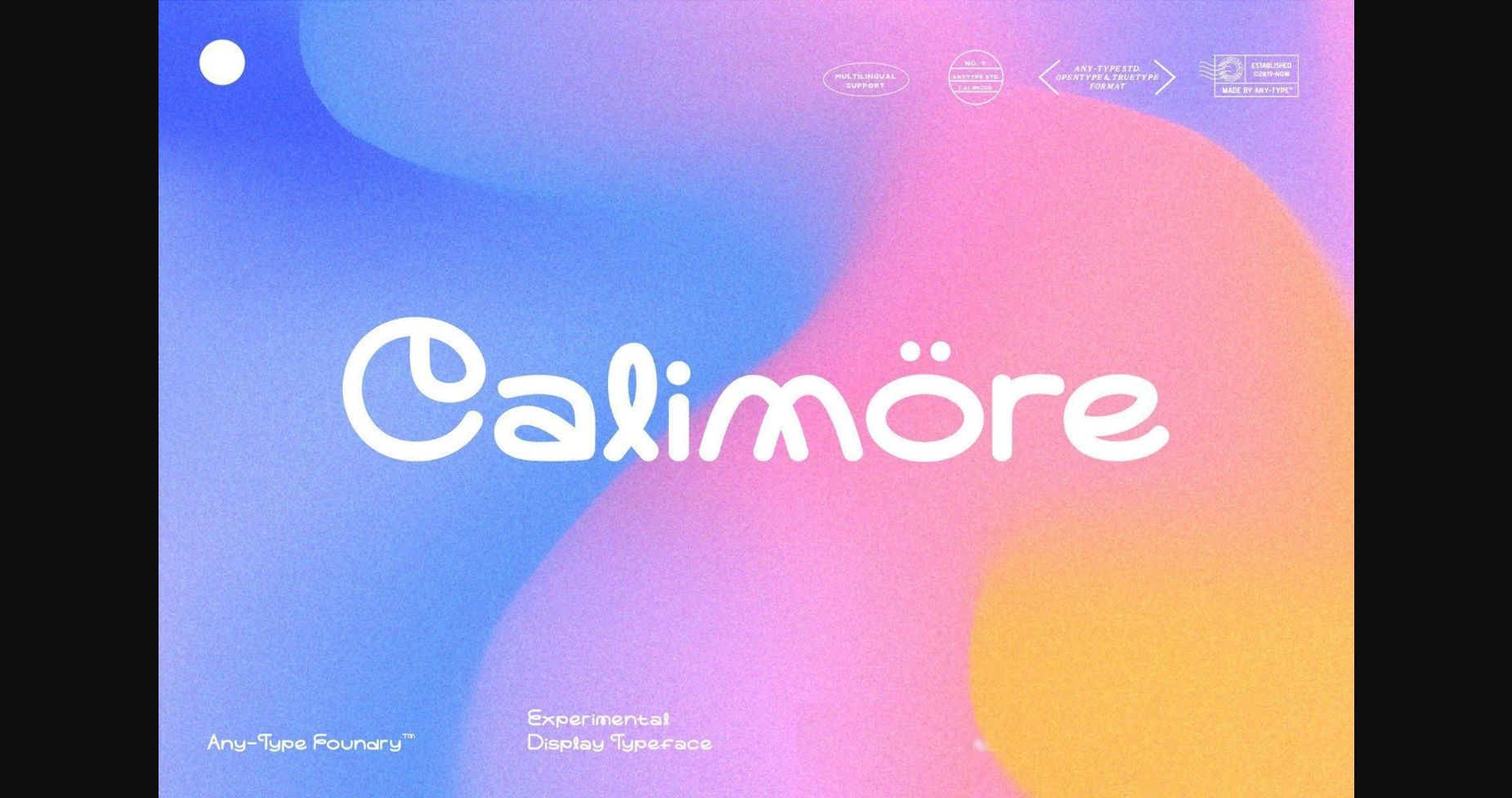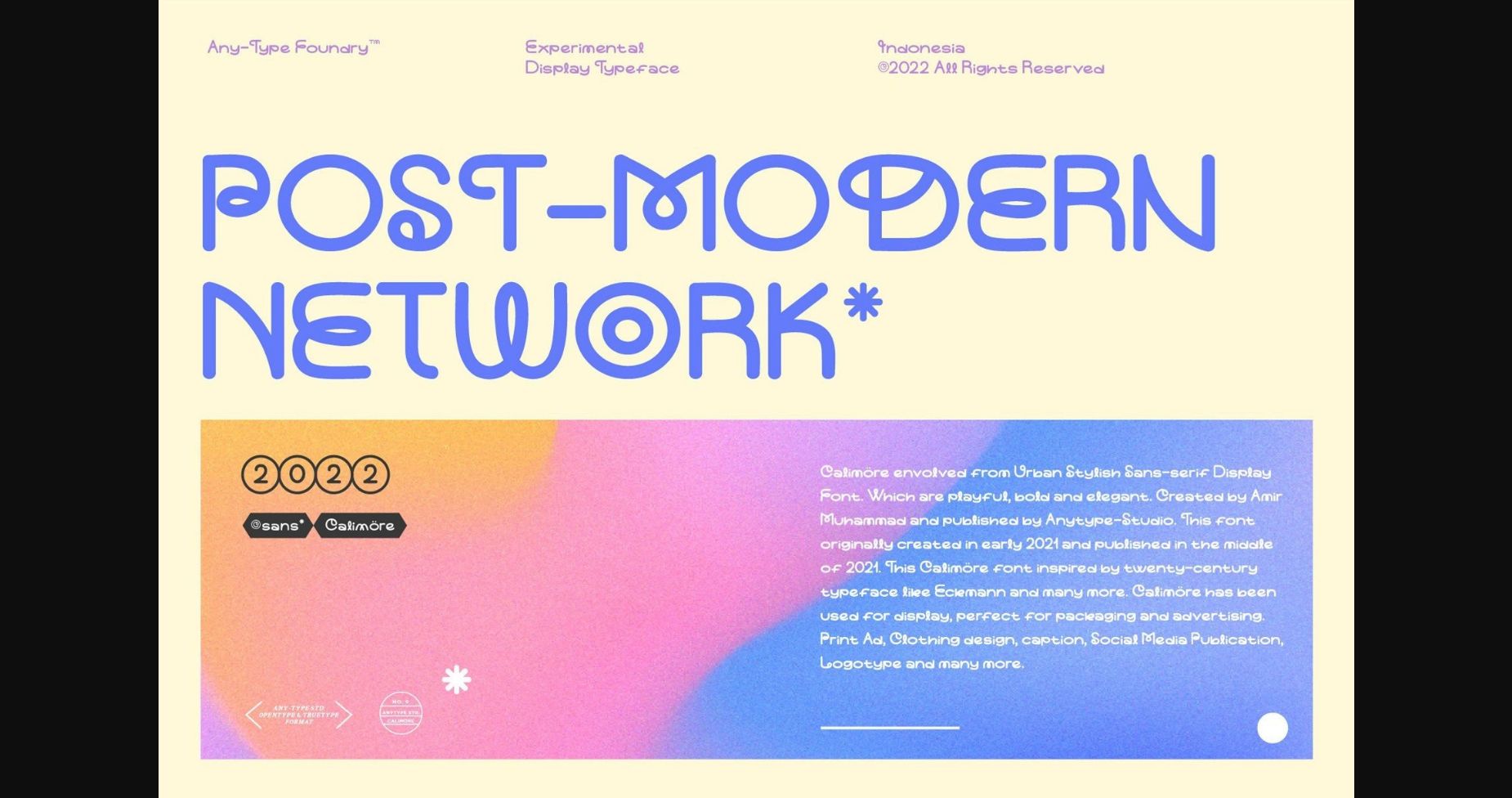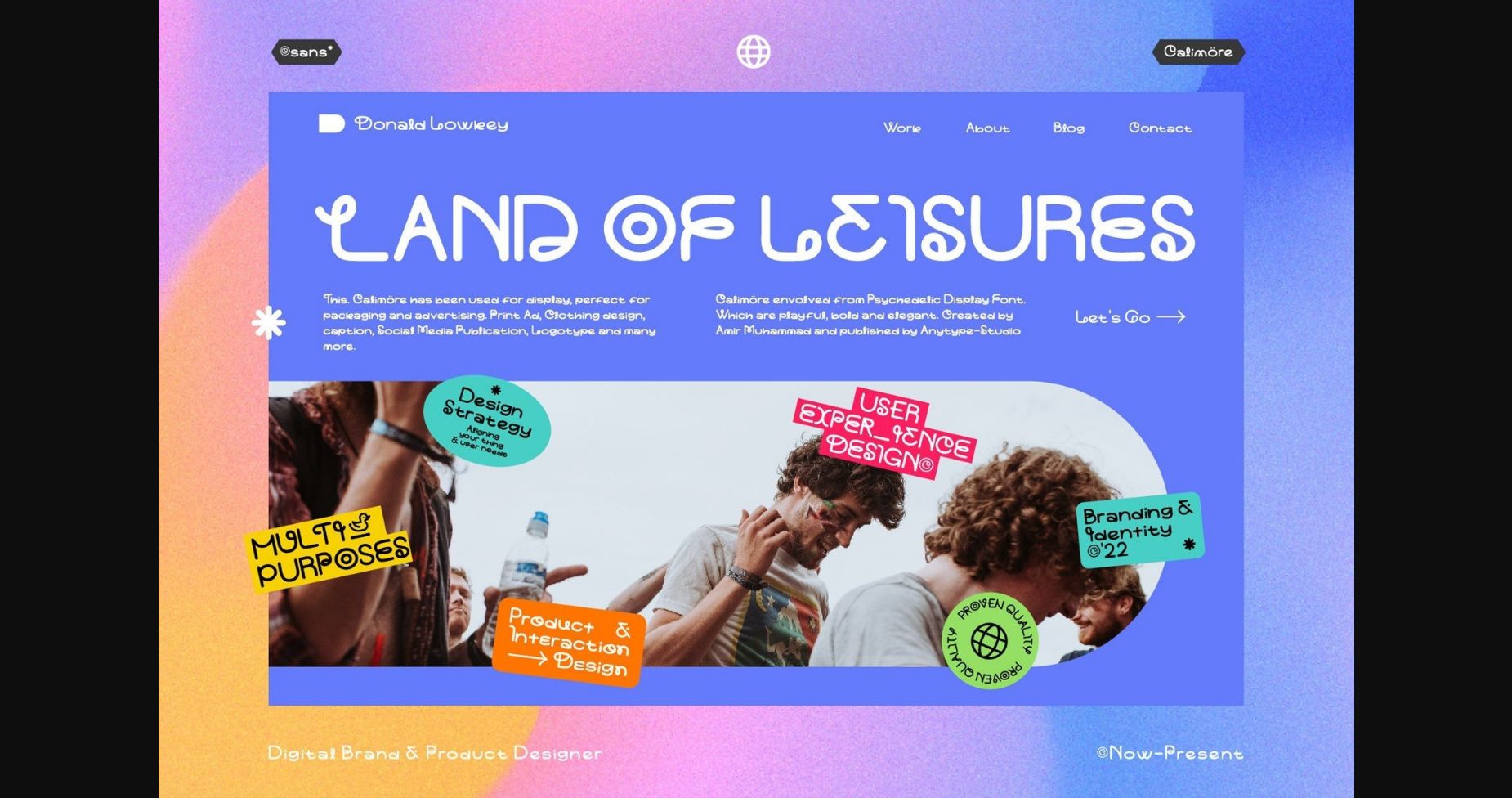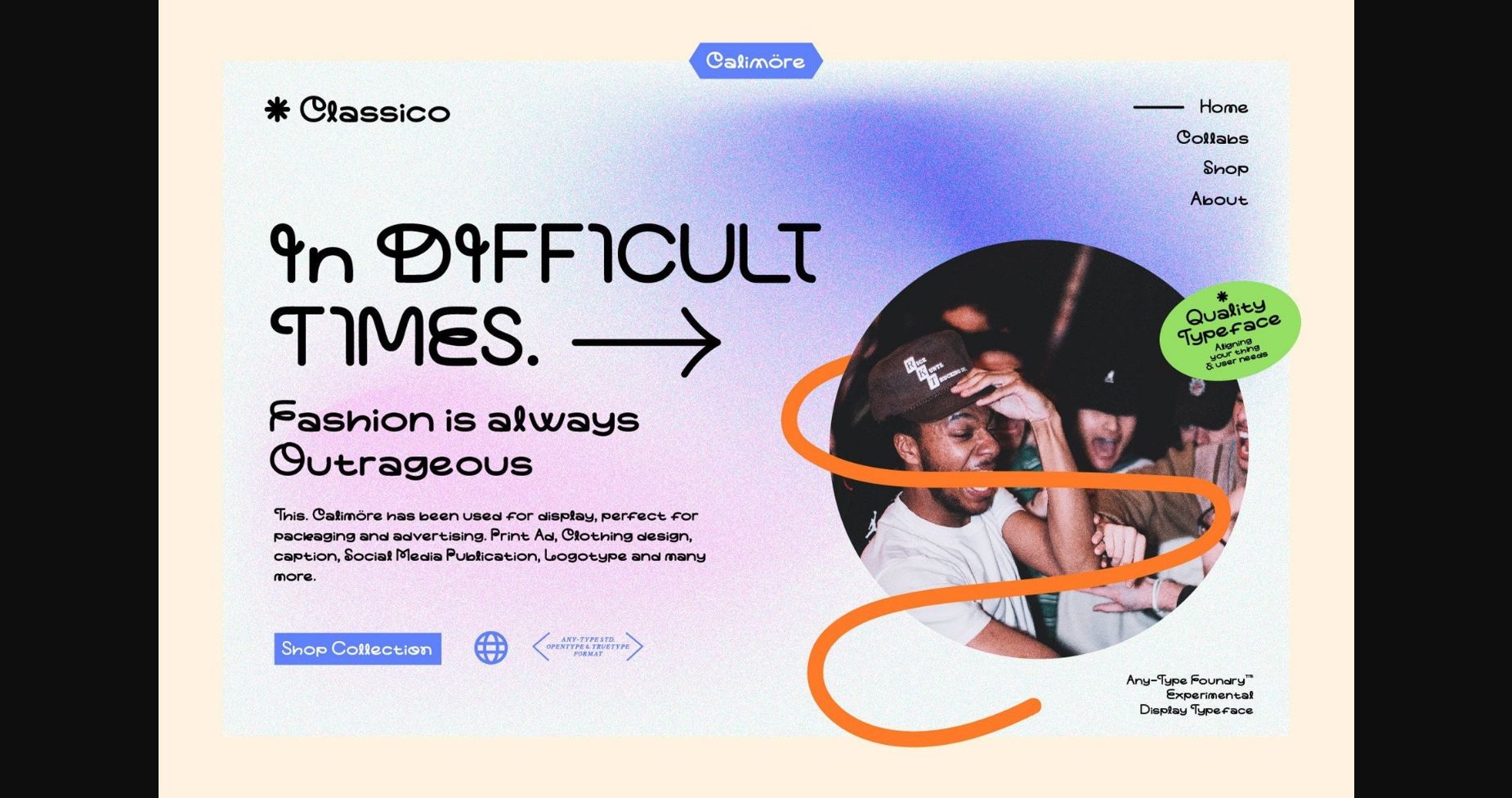
About Calimöre Font
Calimöre is a fun and playful sans serif font. Whether you’re using it for crafts, digital design, presentations, or making greeting cards, this font has the potential to become your favorite go-to font, no matter the occasion!